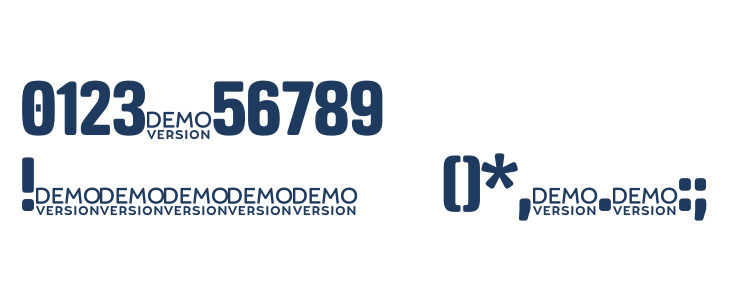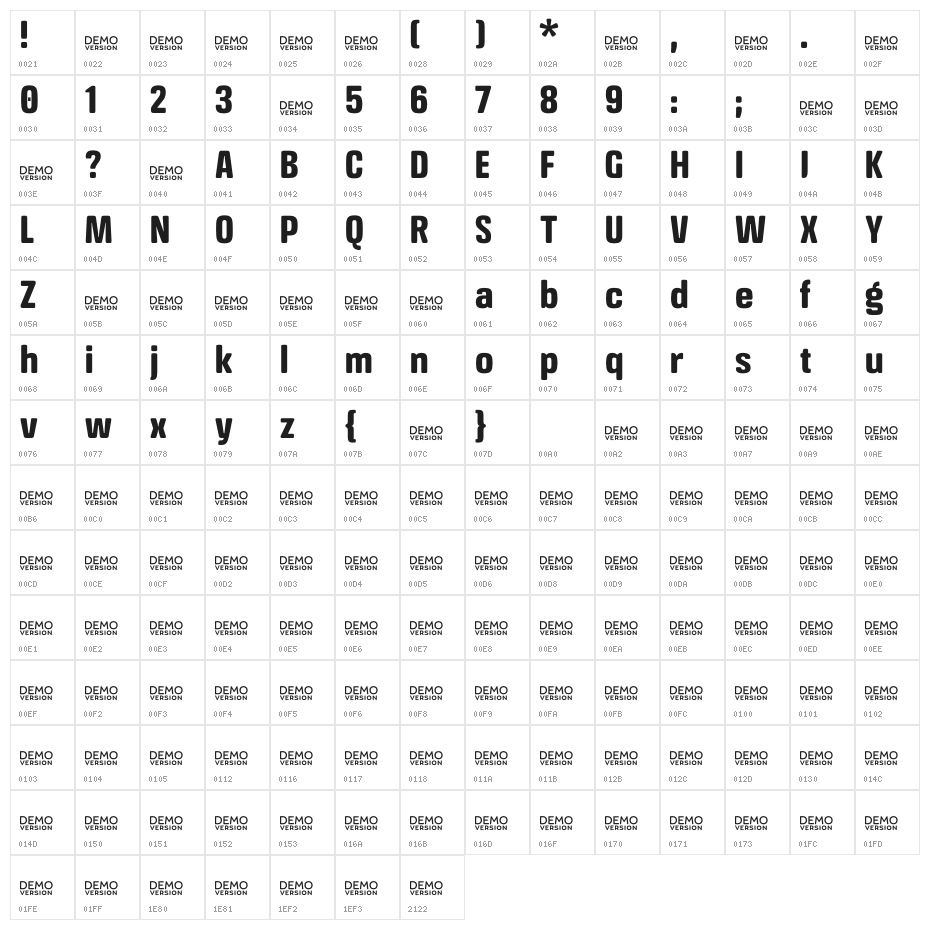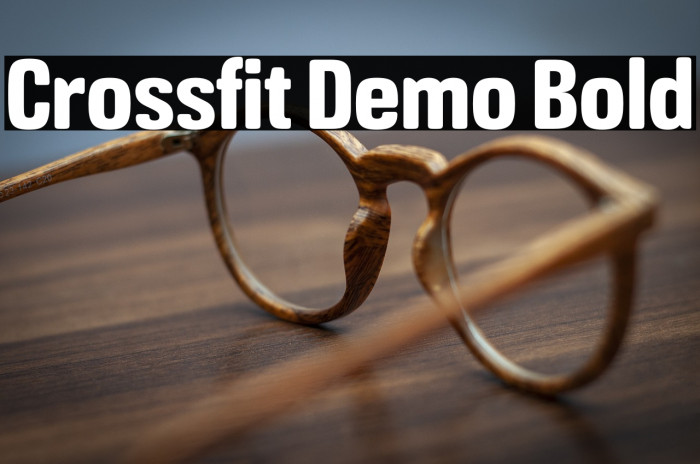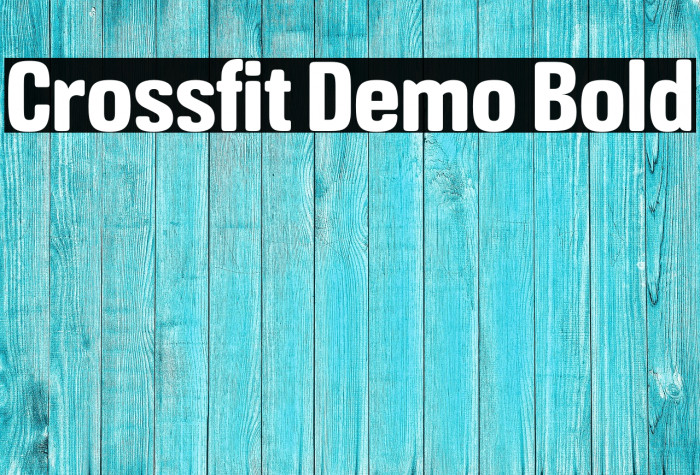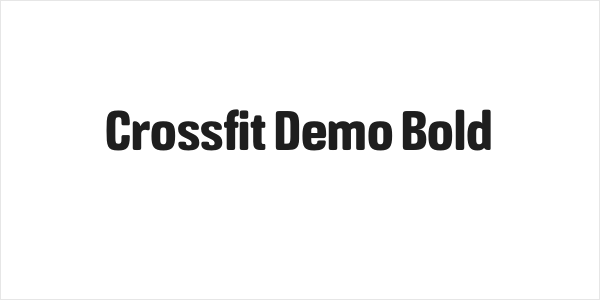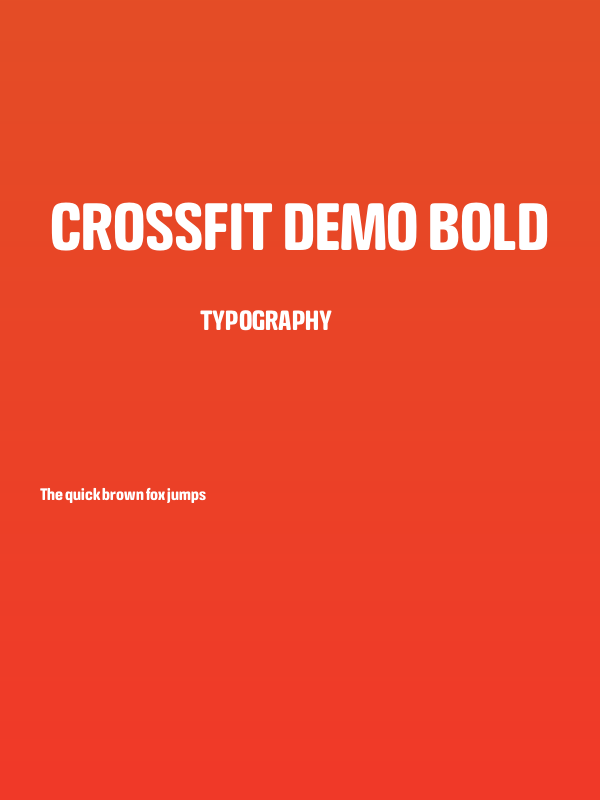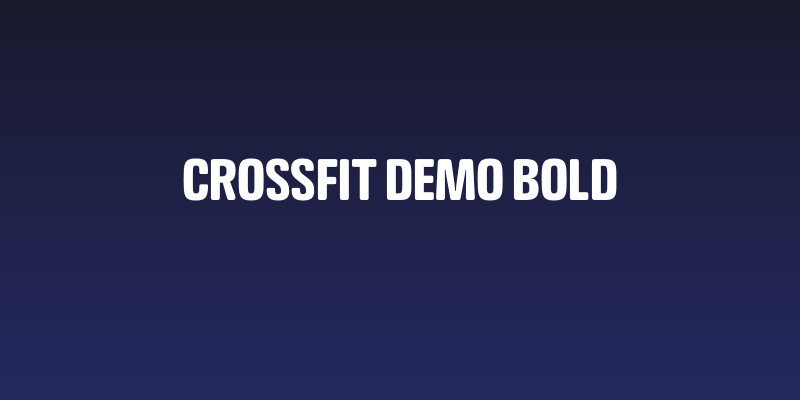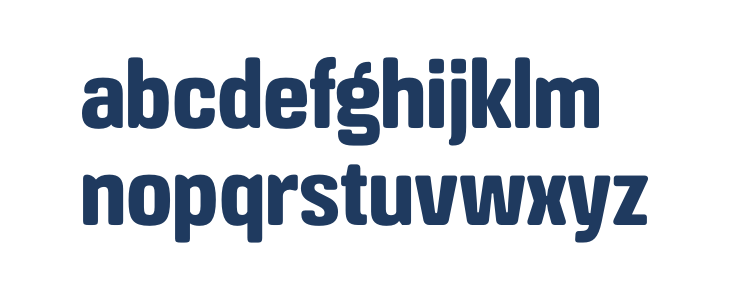
Crossfit Demo Bold Font
Crossfit Demo Bold Description
This font features bold, rounded characters with a strong presence, ideal for making impactful statements. The uppercase and lowercase letters maintain a consistent thickness, contributing to a cohesive and robust appearance. The numerals are equally bold, ensuring clarity and readability. Special characters are designed with the same boldness, making them stand out effectively. The overall style is modern and clean, suitable for various design needs.